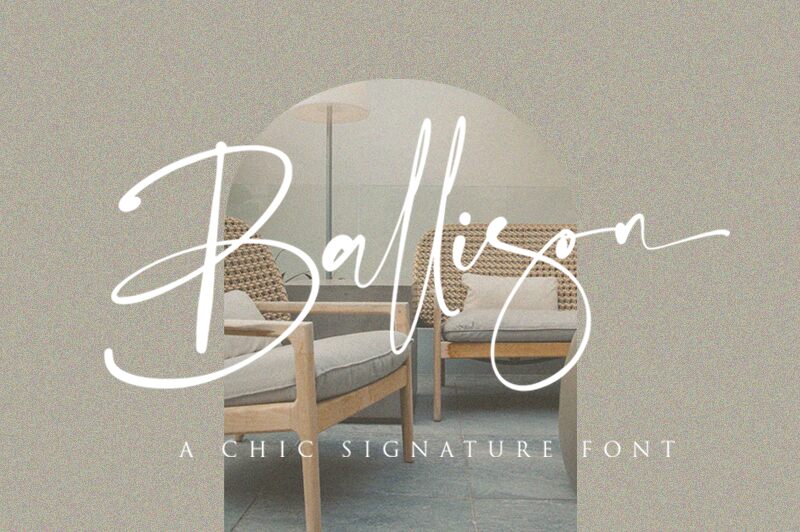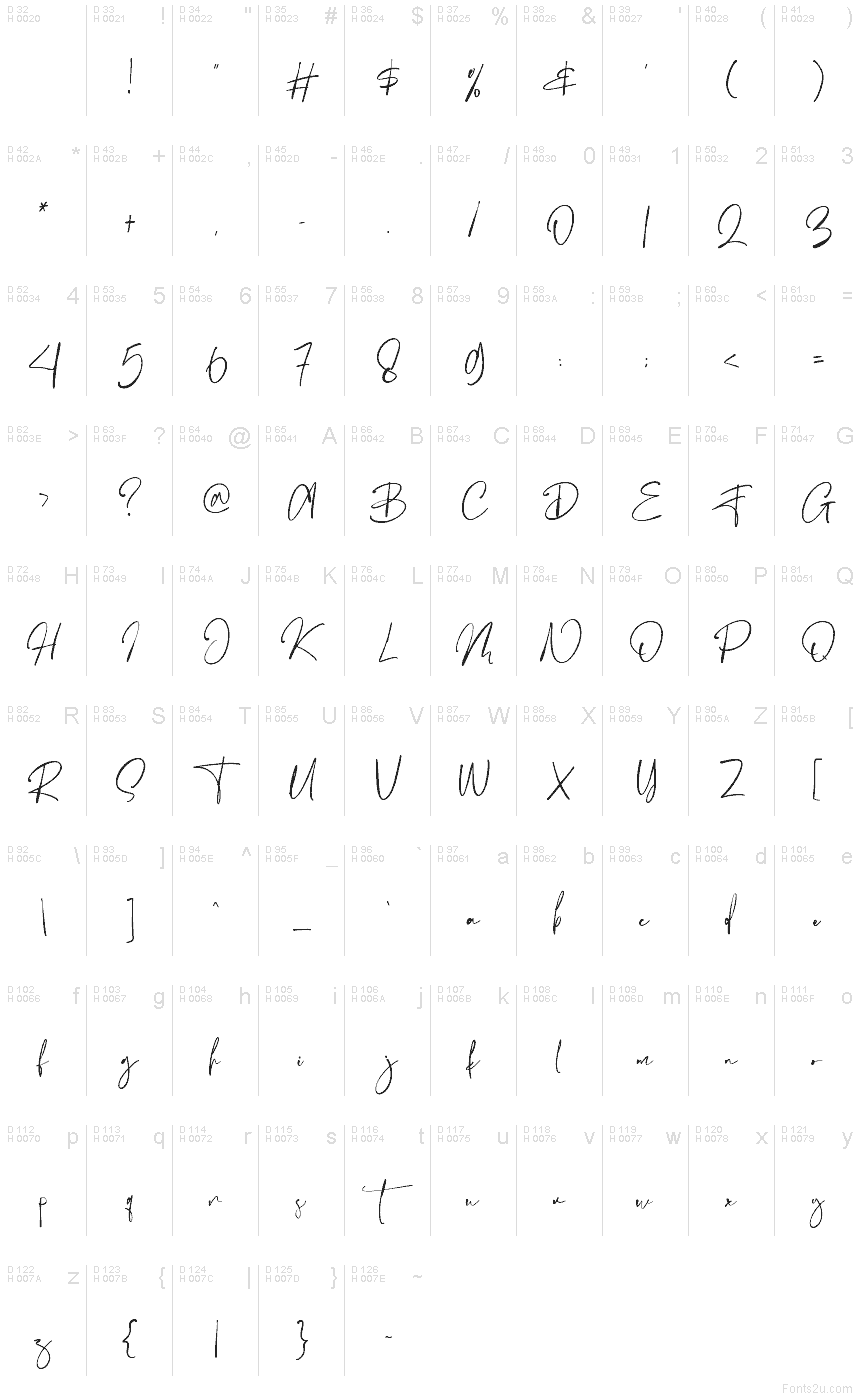
Ballison
Ballison font is a free handwritten font designed by Vultype. Light, elegant, and expressive, this typeface mimics the appearance of natural handwriting. Its stylish flowing characters introduce themselves as both sophisticated and modern for a look that easily compliments your projects.
Applications are almost limitless with versatile use cases in apparel designs, ads, invitations/cards, branding/packing projects, mugs/letters printouts, social media covers/posts/stories, video covers/graphics/titles/scenes/effects/transitions.